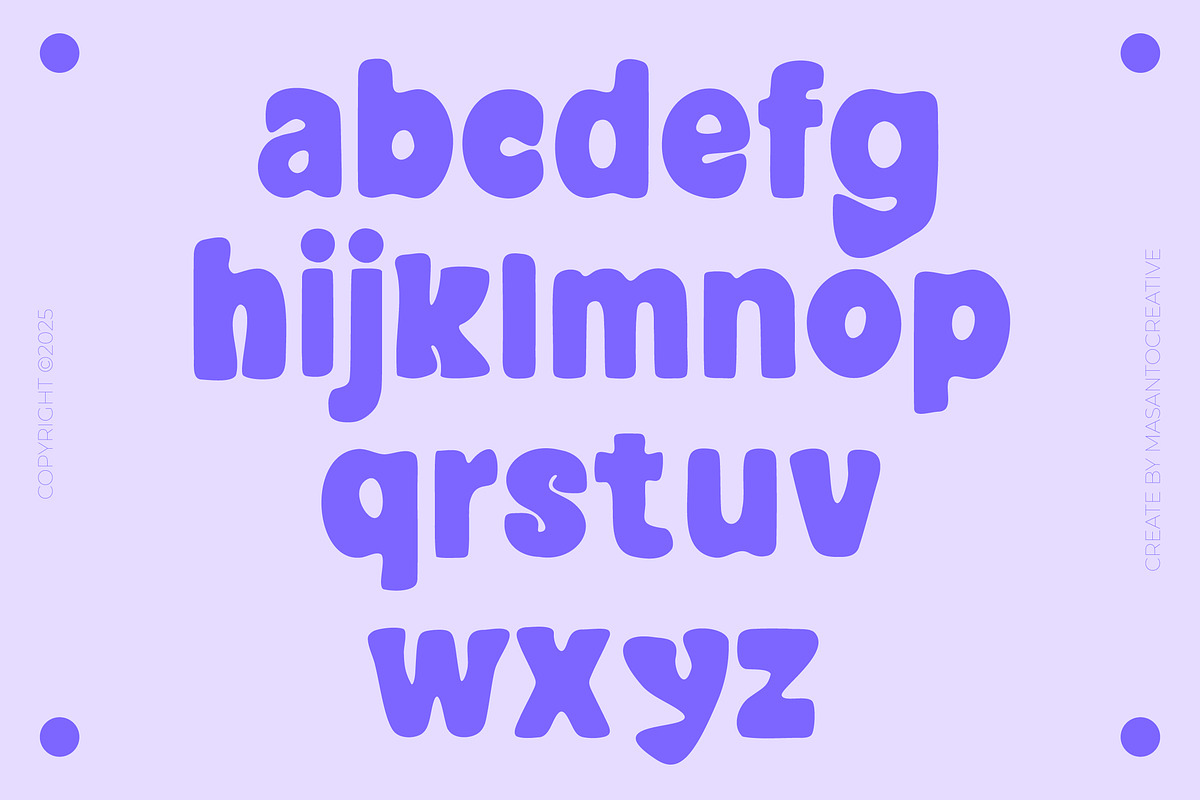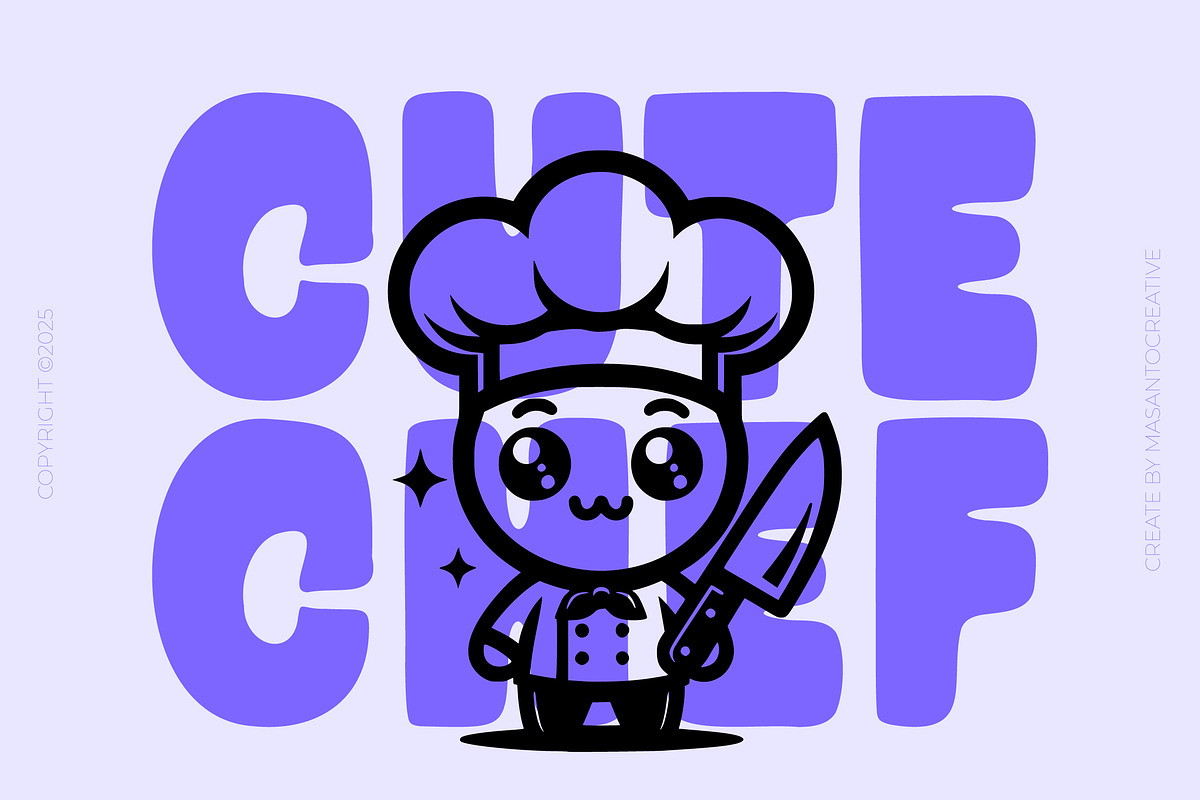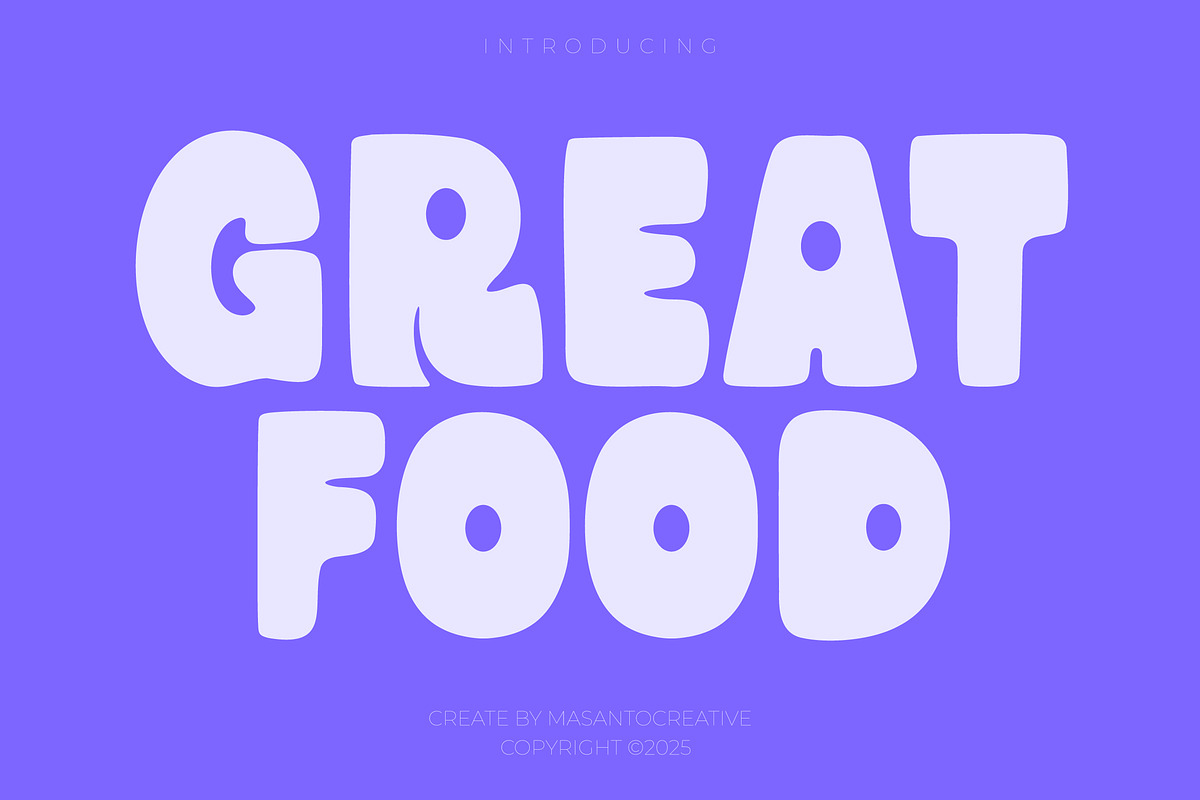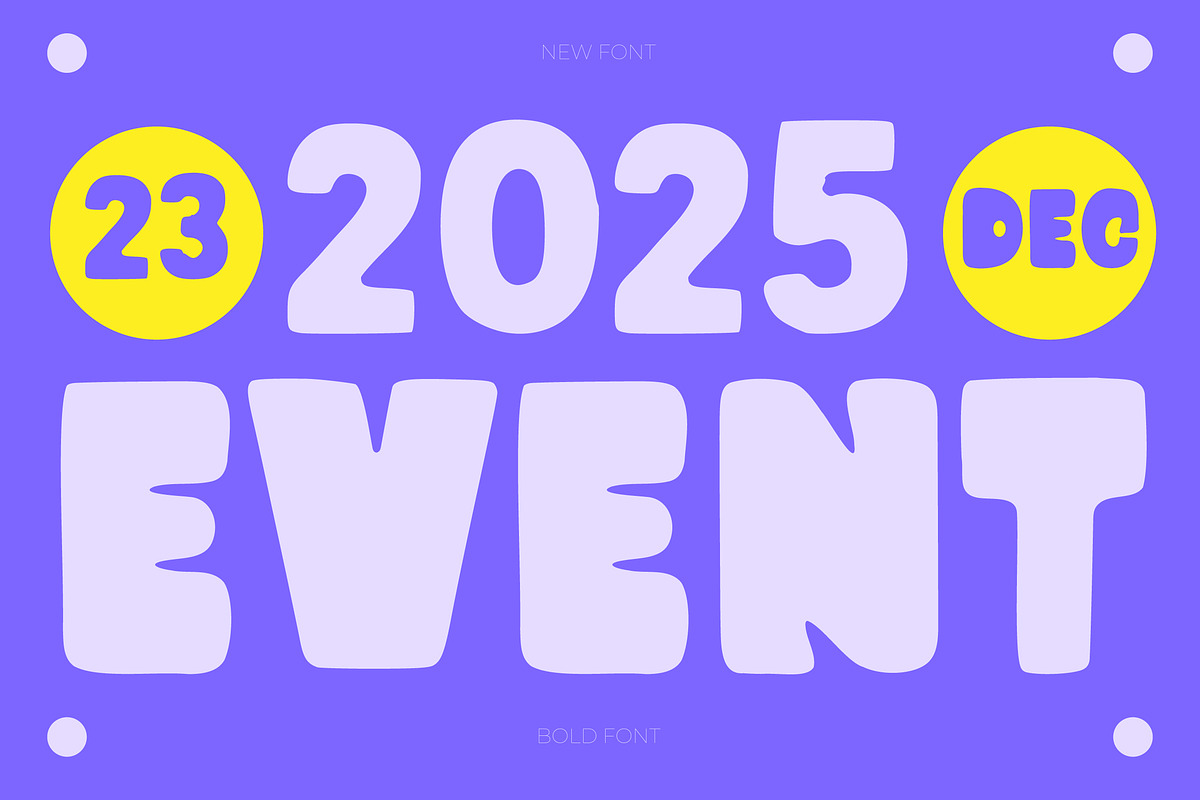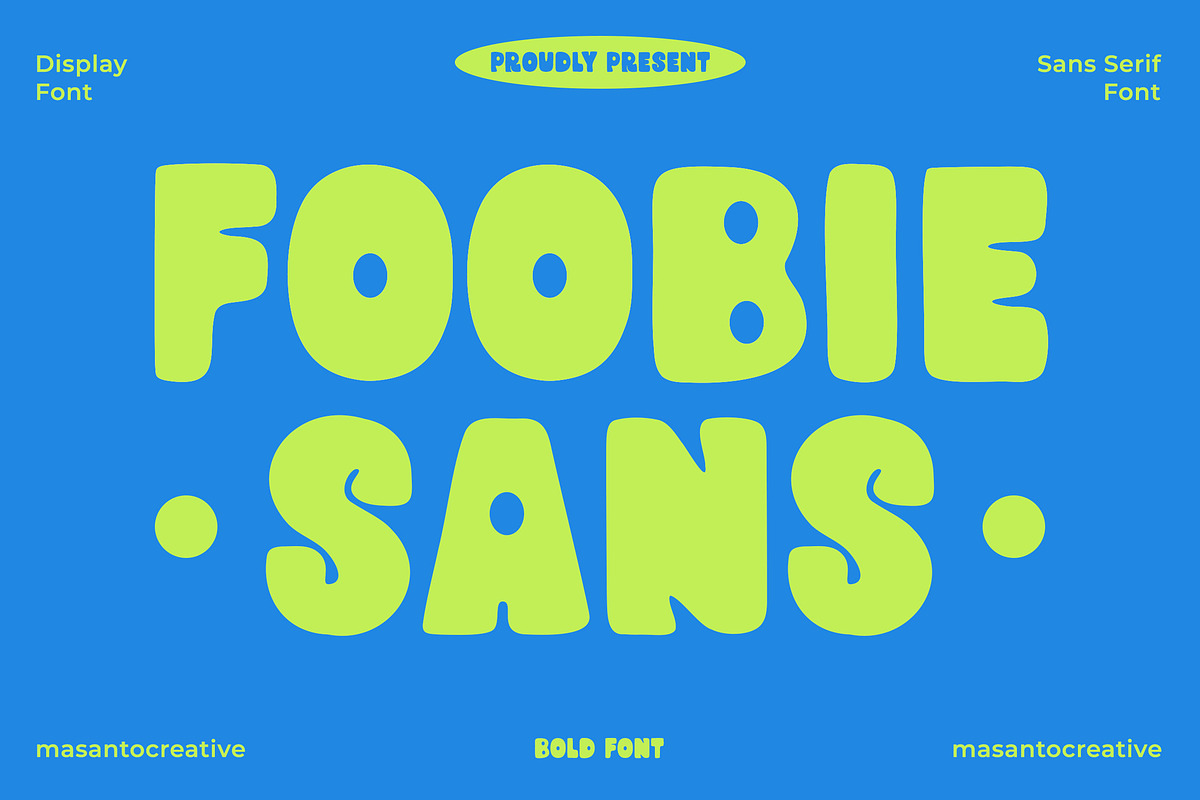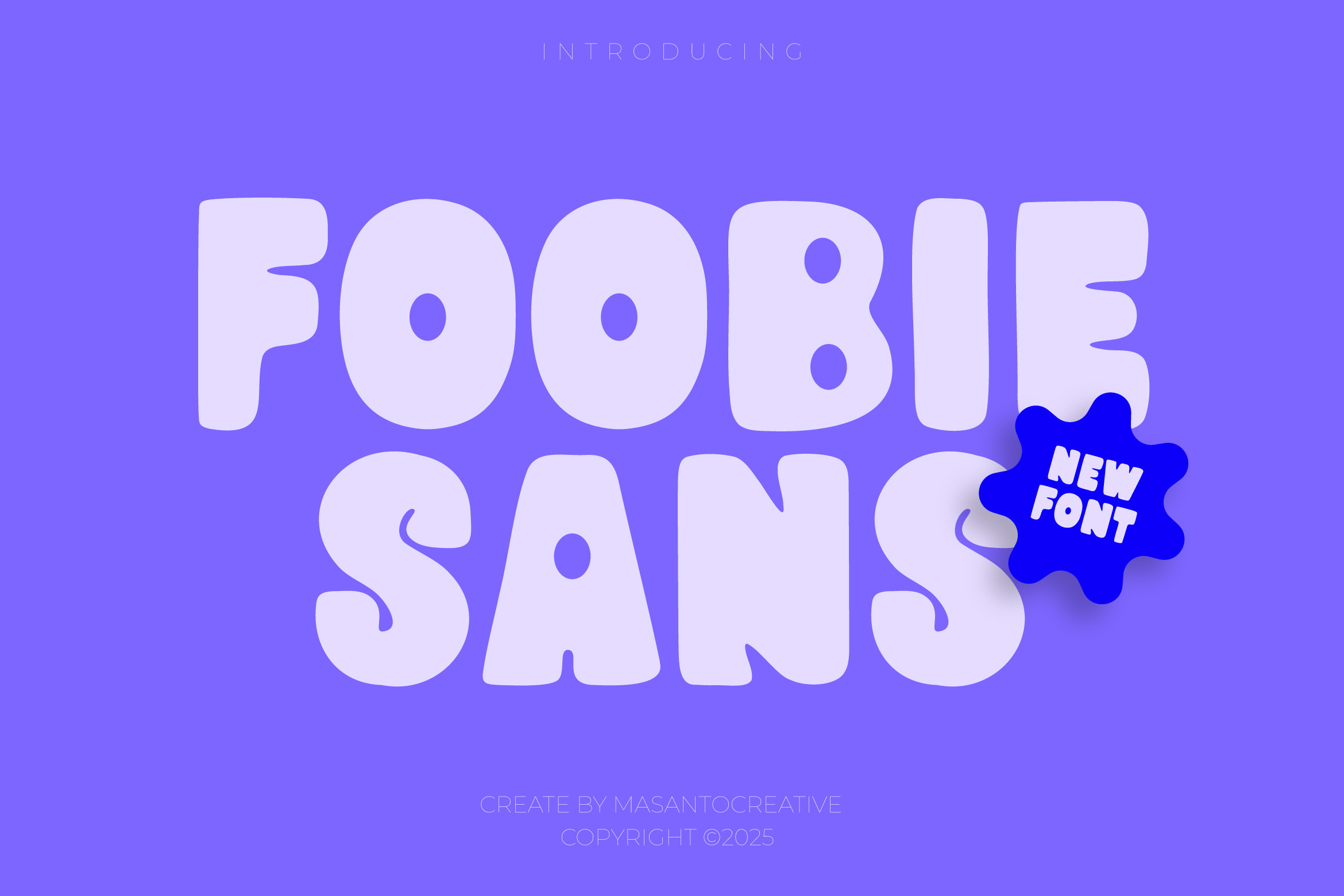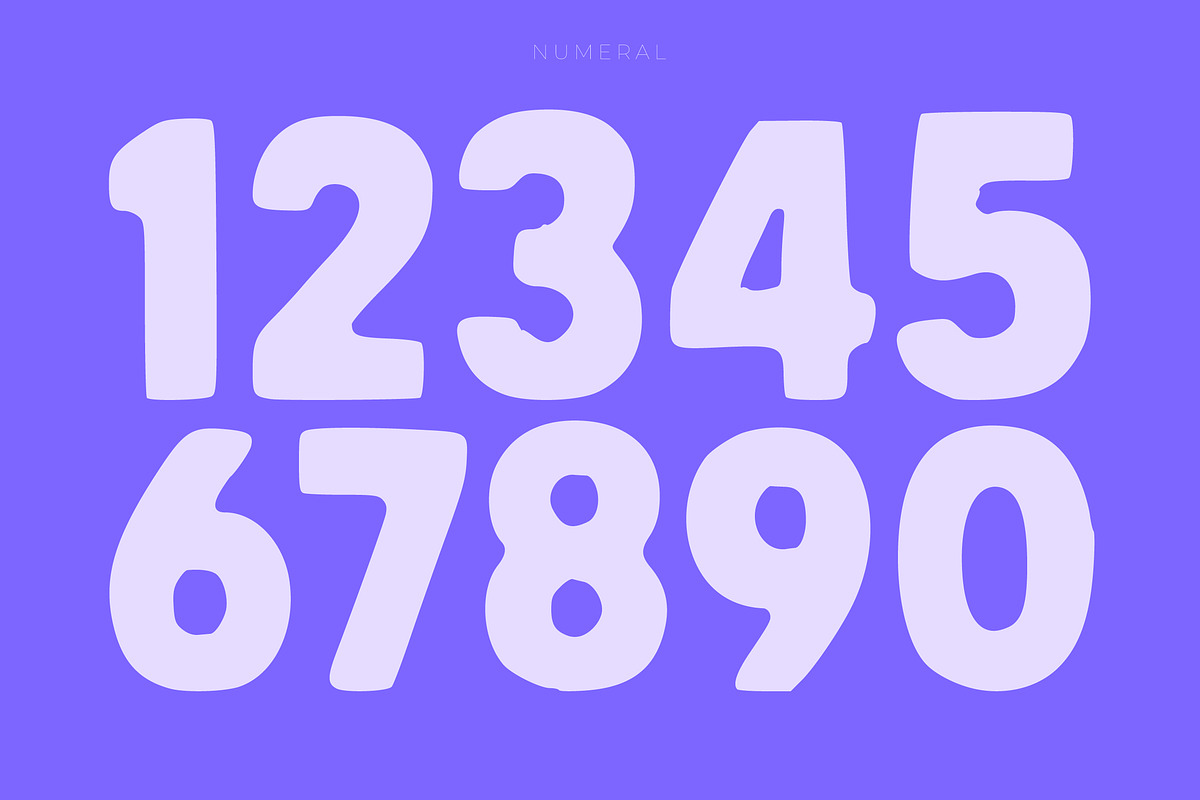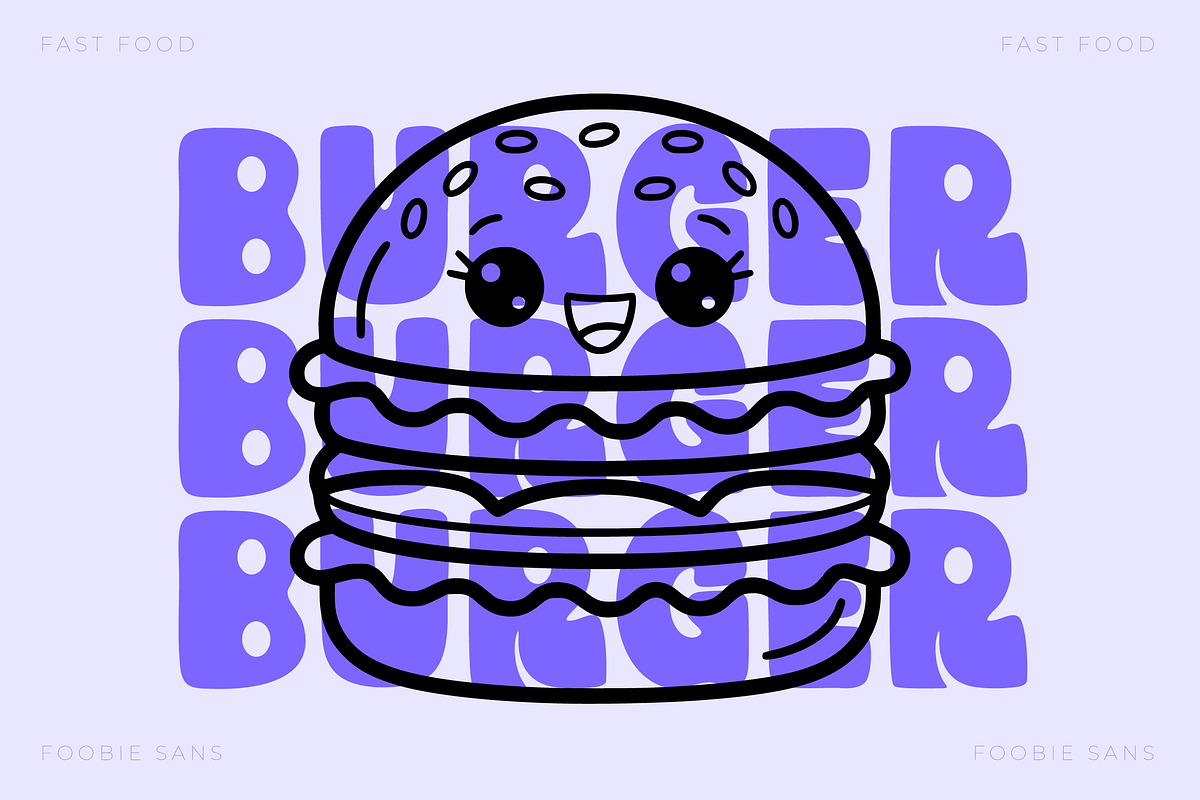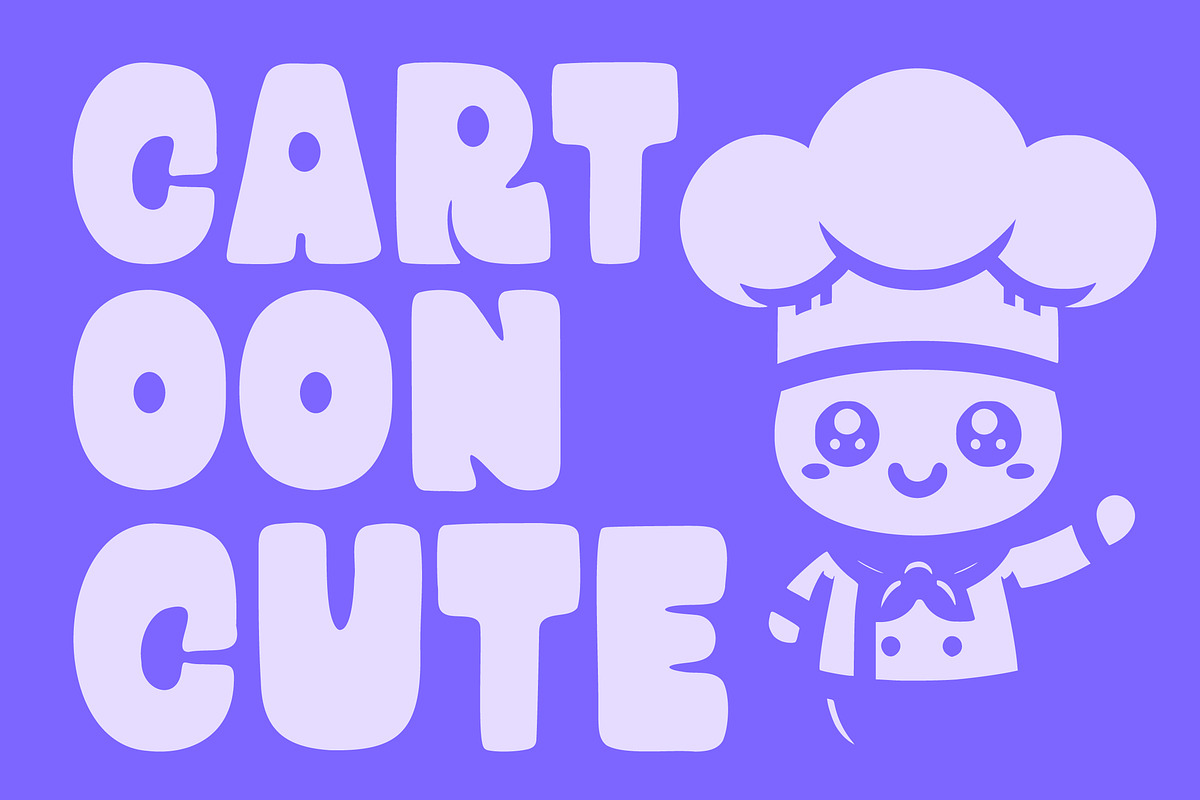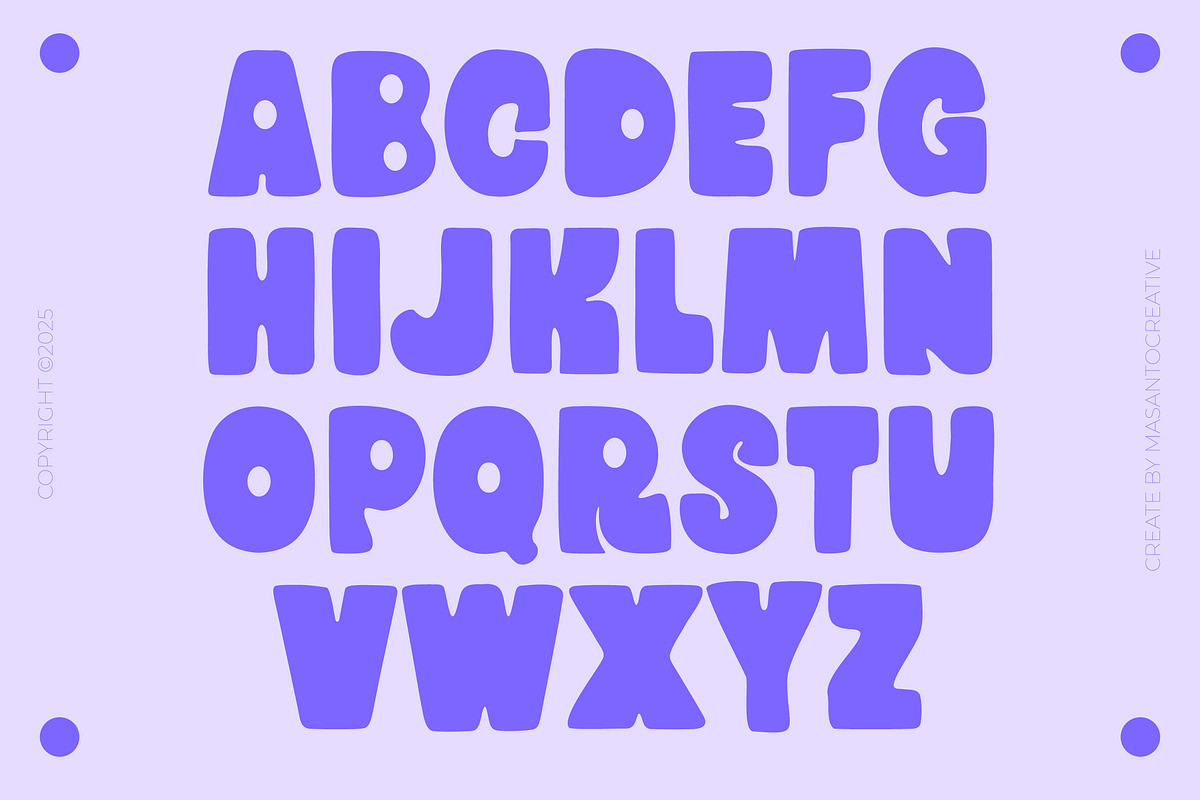
Foobie Sans – Sans Serif Typeface
Foobie Sans is a modern minimalist sans serif typeface that combines simplicity, elegance, and versatility. Designed with clean lines and balanced proportions, this font provides a professional yet approachable look that works well for both digital and print projects.
Its clear and legible characters make Foobie Sans suitable for a wide range of uses, including branding, corporate identity, editorial design, website headlines, social media graphics, posters, and product packaging. The minimalist nature of this font allows it to blend seamlessly into any creative project without overpowering the overall design.